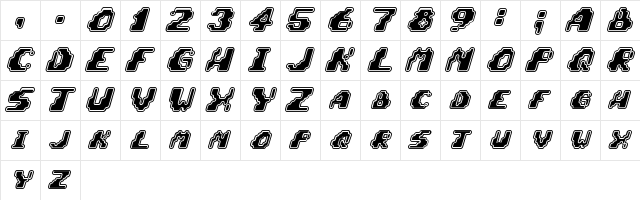
Zero Velocity BRK Regular
Design Context for Zero Velocity BRK Typeface
Zero Velocity BRK is a composed and adaptable typeface that performs quietly and consistently across a wide range of design contexts.